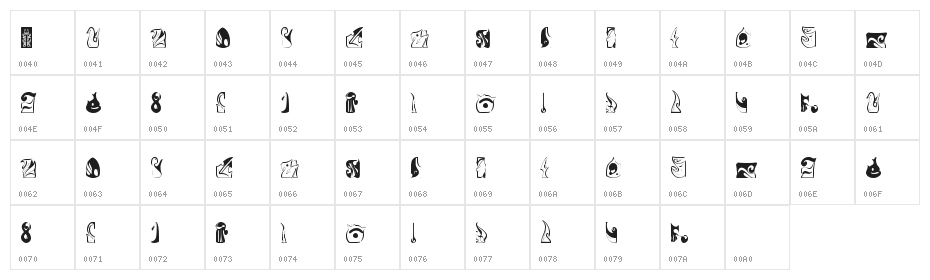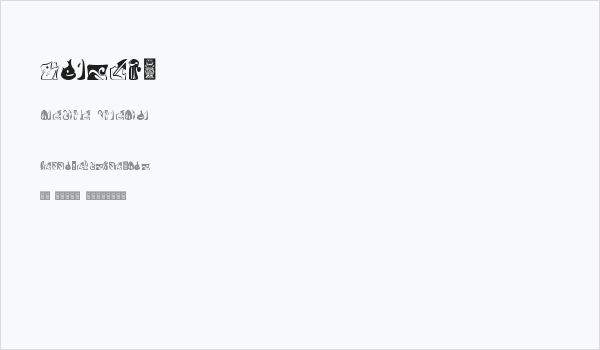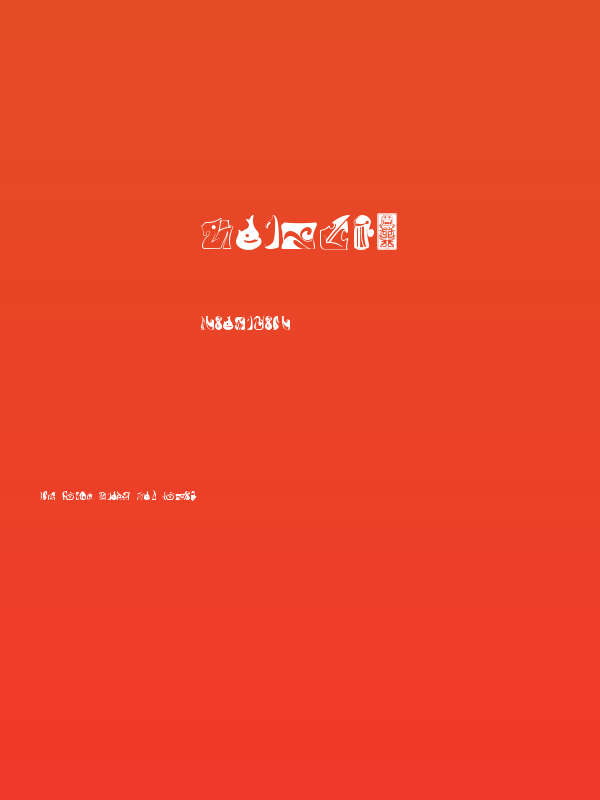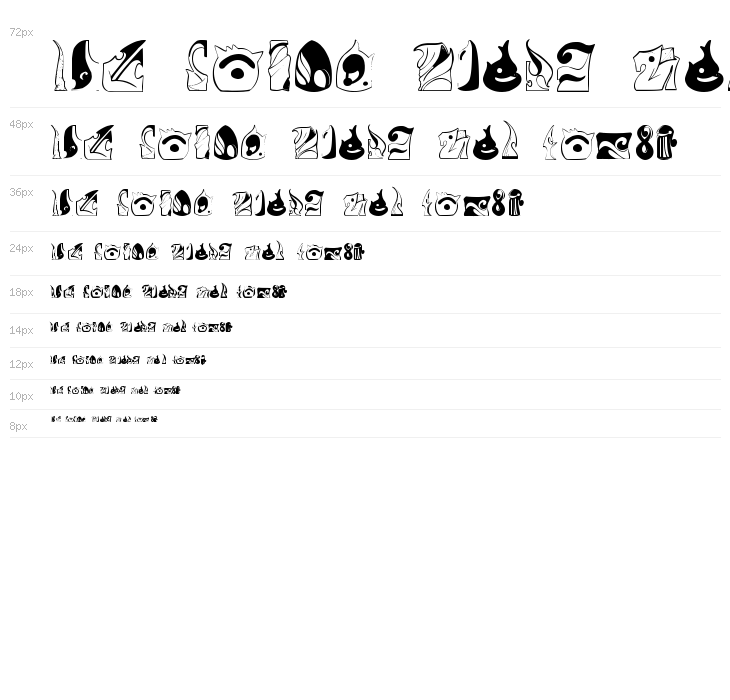
formes2 Font
formes2 Description
This font features a highly decorative and artistic style, with each character resembling abstract art or tribal motifs. The letters and numbers are uniquely crafted with intricate patterns and bold shapes, creating a visually striking appearance. The design includes a mix of thick and thin strokes, adding to its dynamic and expressive nature. The special characters are particularly ornate, resembling ancient symbols or totemic designs. This font is not suitable for body text due to its complex and decorative nature but can make a strong visual impact in specific contexts.
| Use Case | Logos, Posters, Artistic projects |
| Proposed Projects | Ideal for artistic projects, branding with a cultural or tribal theme, posters, and unique logo designs. |